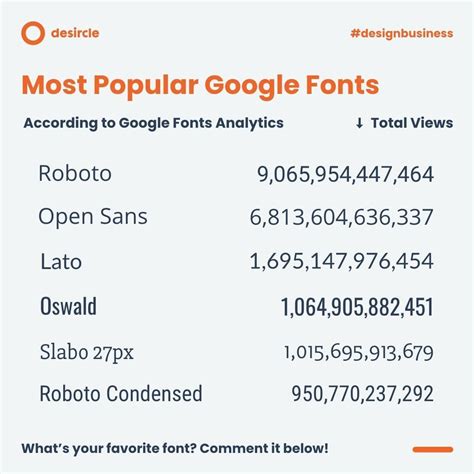
I recently spent hours digging through font libraries for a client’s branding project, only to realize the web font I loved wouldn’t render properly in my desktop design software. If you’ve ever dealt with missing file formats or clunky typography, you know the frustration. That’s exactly why I compiled this list of 38+ Google Fonts Graphic Design Ttf resources. Having the right TrueType files locally ensures your typography stays crisp and accessible, whether you’re working offline in Illustrator or packaging files for print.
Why You Need 38+ Google Fonts Graphic Design Ttf Files Locally
Google Fonts are standard for web design, but relying strictly on web fonts during the initial design phase is a mistake. In my experience, working with local TrueType (TTF) files drastically speeds up your workflow. Your design software doesn’t have to fetch network resources, meaning scrolling and rendering remain snappy. Furthermore, having these files locally prevents unexpected layout shifts if a font gets temporarily pulled from the CDN. It gives you complete control over your design environment.
Top Typefaces for Your 38+ Google Fonts Graphic Design Ttf Collection
Not all typefaces are created equal. When I test fonts for commercial work, I look for distinct weights, variable axis support, and excellent legibility. Here are a few standouts that I constantly rely on for client deliverables:
- Inter: The ultimate UI font. It handles small text sizes better than almost anything else.
- Roboto Slab: Excellent for adding typographic contrast without feeling too rigid.
- Space Grotesk: My go-to for modern, tech-forward branding.
- Merriweather: A serif that holds up beautifully on high-resolution screens.
Organizing Your 38+ Google Fonts Graphic Design Ttf Library
Building a reliable local font library takes a bit of upfront work, but the payoff is immediate. You eliminate rendering surprises, speed up your design software, and maintain total control over your creative assets. Stop relying on network connections to dictate your typography choices. Take the time to curate your local files today, and watch how much smoother your design process becomes tomorrow.